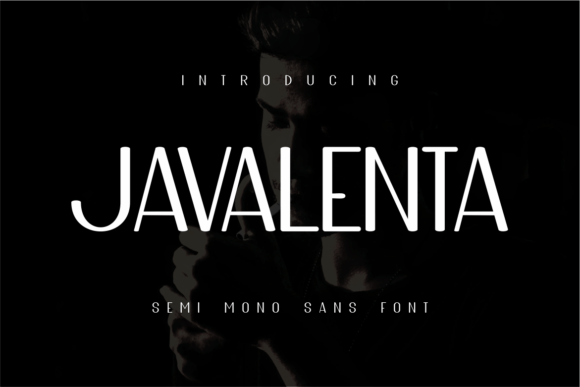
Dive into the realm of elegance and sophistication with Javalenta, a captivating sans serif font that exudes timeless beauty. Created by the visionary minds at Monoletter, Javalenta embodies the essence of grace and clarity, its well-rounded characters and easy-to-read look making it a perfect choice for titles, logos, and any project seeking to evoke a sense of refinement.
Step into a world of boundless creativity with Javalenta, a font family that unlocks the secrets of visual allure. Its clean lines and gentle curves invite you to explore the depths of your imagination, crafting designs that are both captivating and timeless. Let Javalenta be your guiding light as you embark on a journey of artistic brilliance, transforming your creative visions into tangible masterpieces.
Embrace the versatility of Javalenta, a font that dances across multiple platforms, effortlessly adapting to your every need. From the grandeur of print media to the dynamic world of digital design, Javalenta shines with unwavering poise. Its crisp details and harmonious proportions make it a versatile performer, adding a touch of elegance to brochures, posters, presentations, and websites.
Unleash the power of expression with Javalenta, a font that speaks to the heart and captivates the senses. Its subtle nuances and expressive strokes evoke emotions that resonate with your audience, leaving an enduring impression that lingers in their minds. Let Javalenta be your voice, conveying messages with an eloquence that transcends words, enchanting readers and viewers alike.